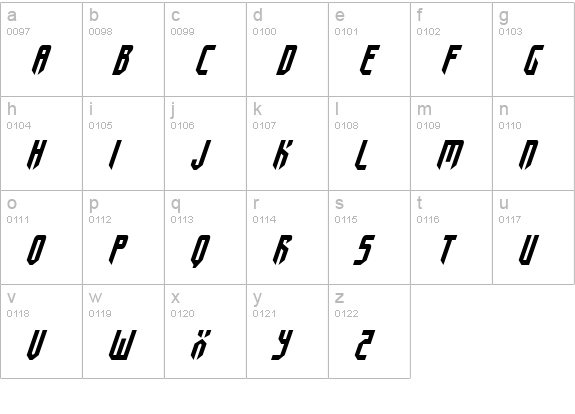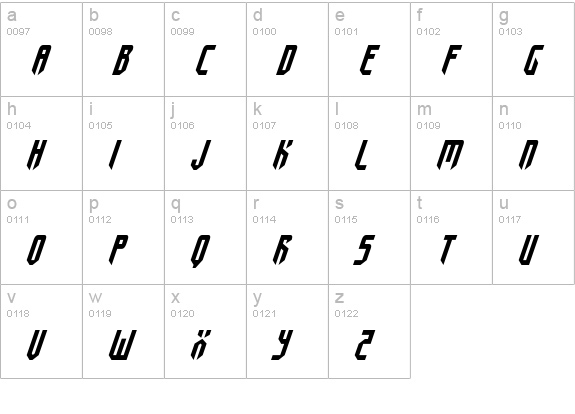
Fedyral II Italic is a distinctive, italic variant in the Fedyral typeface family \xE2\x80\x94 well suited to design and typography projects.
Fedyral II Italic font exudes elegance and sophistication with its sleek and stylish design. The flowing italic letterforms add a touch of flair to any project, making it perfect for branding, invitations, and more. The sharp angles and smooth curves of this typeface create a harmonious balance that catches the eye and commands attention. What's more, Fedyral II Italic font is available for free download at FontsMarket.com, making it easily accessible for designers and creators looking to add a touch of class to their work without breaking the bank. Whether you're crafting a bold headline or designing a refined logo, Fedyral II Italic font is sure to elevate your designs to the next level. Download it today and let your creativity soar with this stunning typeface.